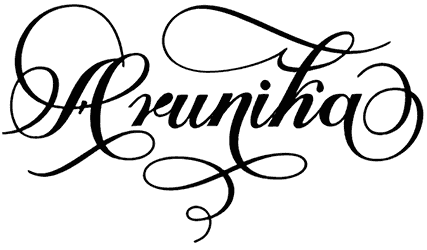
Arunika Font
Arunika is suitable for designers who don’t have enough time to add embellishments to their writing. By using this calligraphy font, you can create a rhythmic twist in your writings that will encourage any reader to read them.
In addition, this funeral font can give you credibility and value that will nail any viewer to your designs for a few moments. Therefore, use this font for wedding cards, covers of poetry books, and titles of romantic movies.